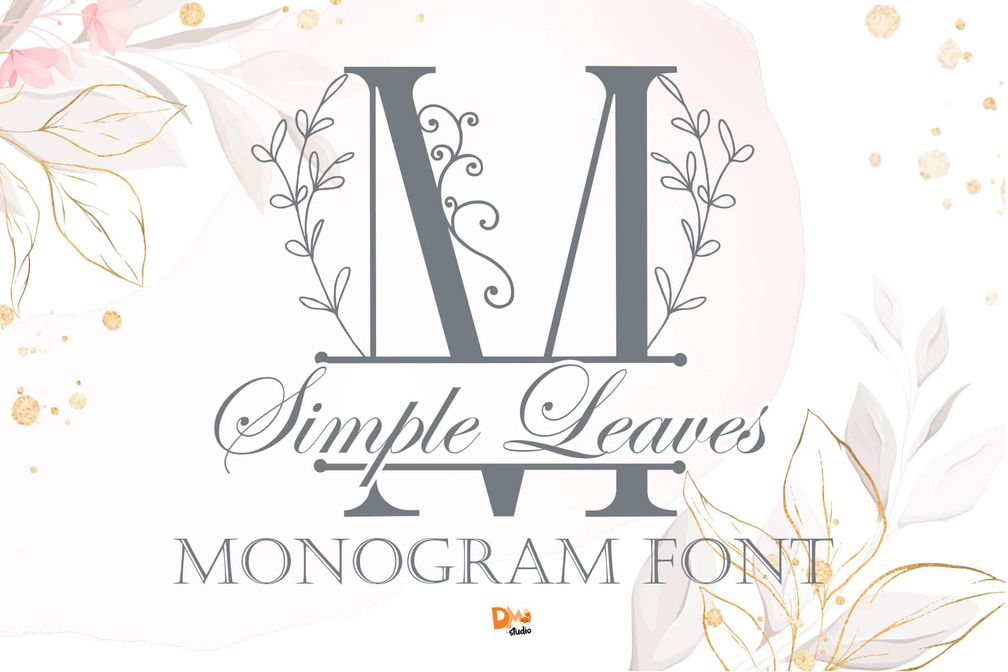
Simple Leaves Monogram Font
Simple Leaves Monogram Font is a beautifully crafted typeface that incorporates the elegance of nature into your monogram designs. Perfect for eco-friendly branding, wedding invitations, and personalized gifts, this font adds a natural and elegant touch to your creations.
• Natural and Elegant Design: Incorporates the beauty of leaves into monograms.
• Versatile Application: Ideal for eco-friendly branding, wedding invitations, personalized gifts, and more.